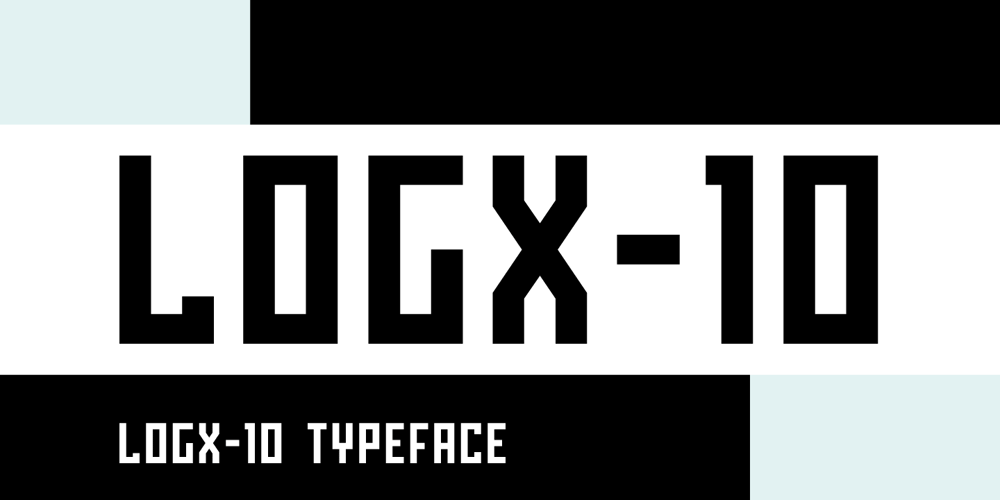
Logx 10 Font Family was designed by Bartosz Panek and published by Fontsphere. Logx 10 contains 4 styles and family package options. LOGX-10 is a geometric minimalistic all-caps display typeface. Designed for strong headers, original graphic designs, visual identification and for many types of designs. It works not only in headings and subtitles but also in arrangements of various sizes and long text.